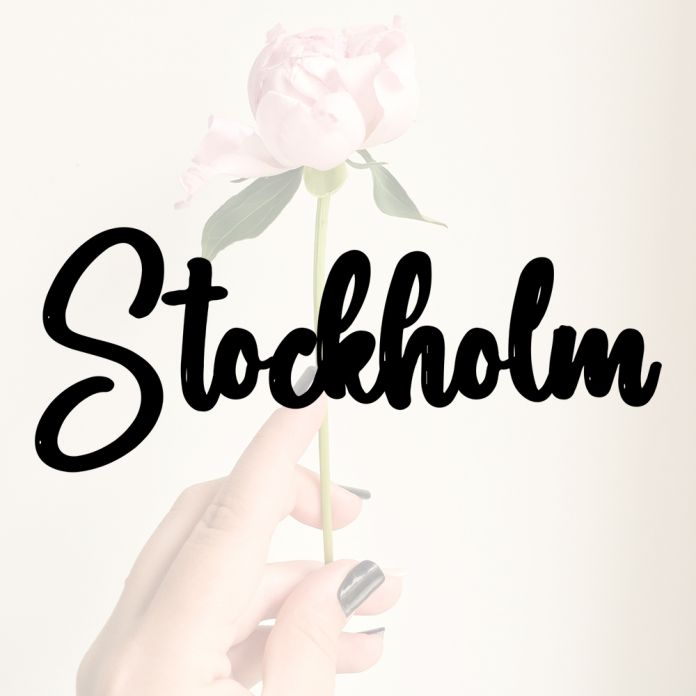
Stockholm is a charming handwritten script font that radiates comfort and casual elegance. Its flowing lines and relaxed feel make it perfect for travel branding, personal blogs, product packaging, or anything that embraces cozy, carefree vibes.